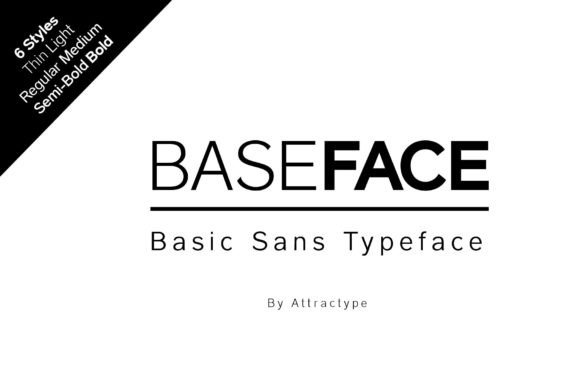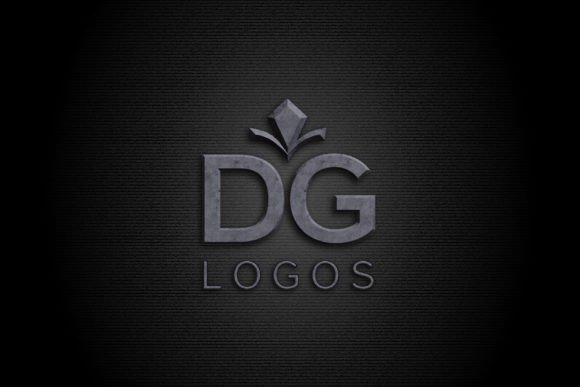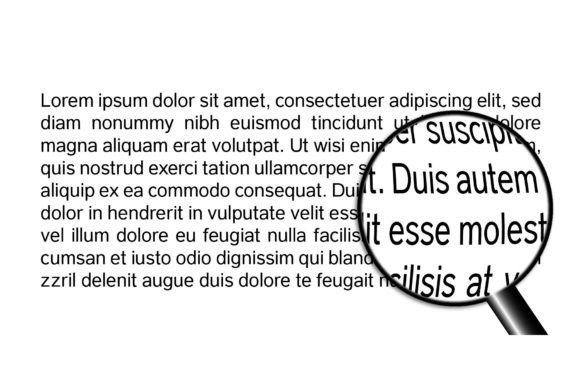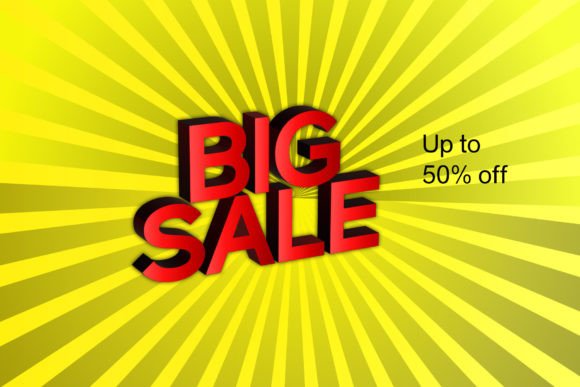
Baseface Font: A Minimalist Sans Serif for Modern Logo Design
About the Baseface Font
Presenting Baseface Font, a unique and stylish typeface that will make your work stand out. Baseface is a sans serif font family with a basic shape, and simple and clean design. With a choice of six font styles, it is suitable for various typography designs, general text, text effects, logos, web pages, lettering, laser cutting, t-shirt design, and others.
Baseface Font Usage Examples
Baseface Font Example